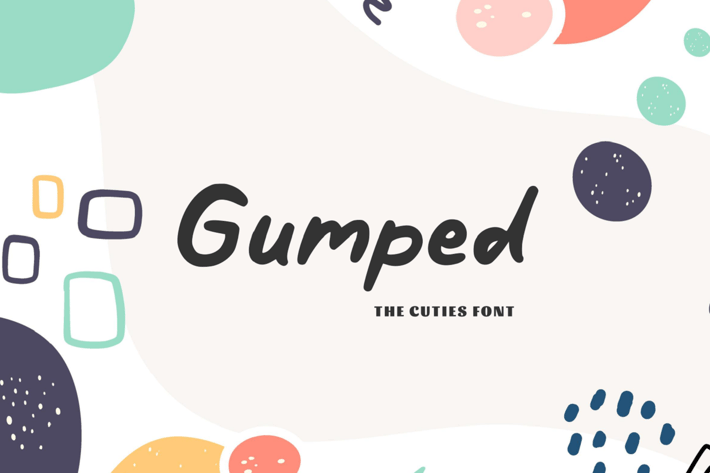
Gumped - The Cuties Font
Gumped - The Cuties Font, it’s perfect for logos, name card, magazine layouts, invitations, headers, or even large-scale artwork.